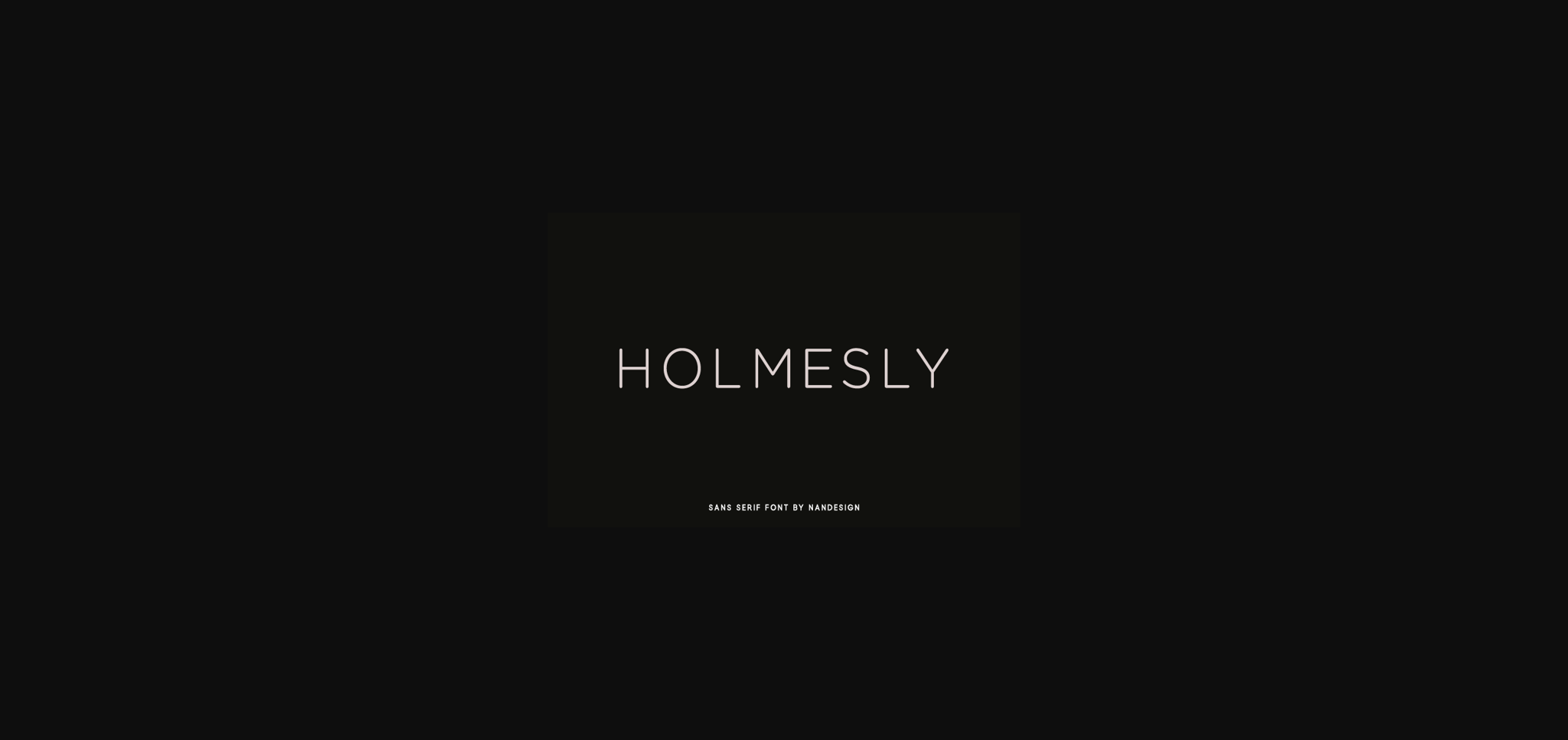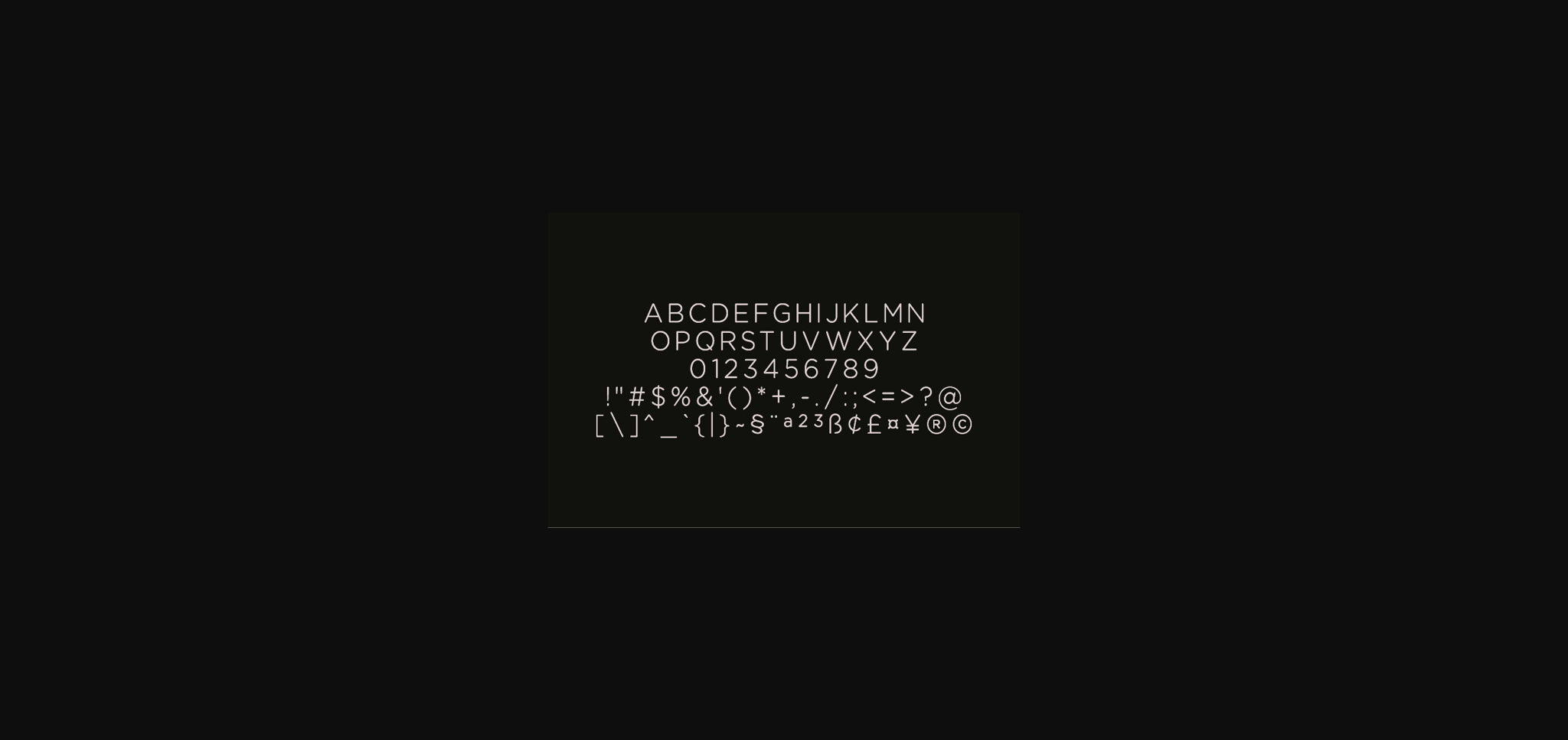
Holmesly Font
About Holmesly Font
Holmesly is a smooth sans serif font. It will complement any design need perfectly with its perfectly balanced mix of the smooth and sharp!